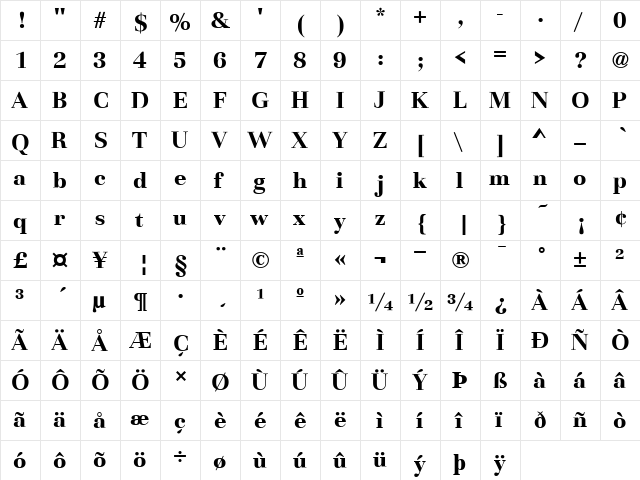
Basilia T Bold
Design Context for Basilia T Typeface
Basilia T is a composed and adaptable typeface that performs quietly and consistently across a wide range of design contexts. Its bold stroke weight gives it real presence on the page.